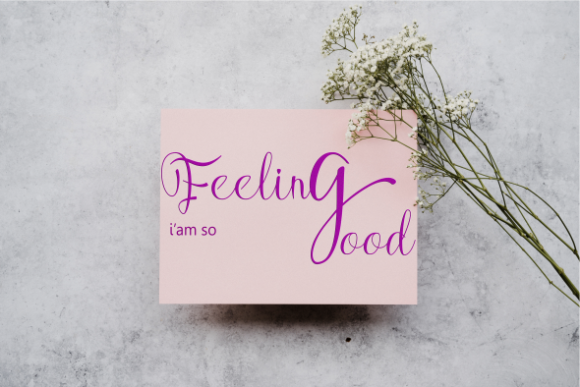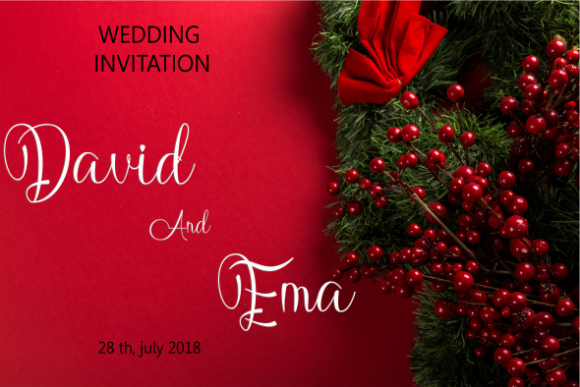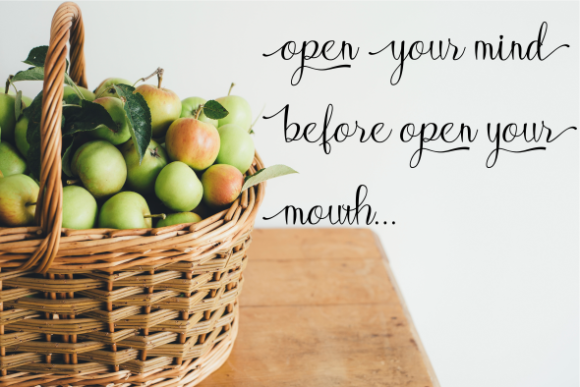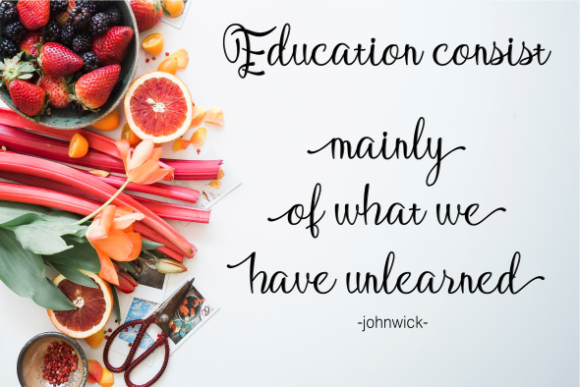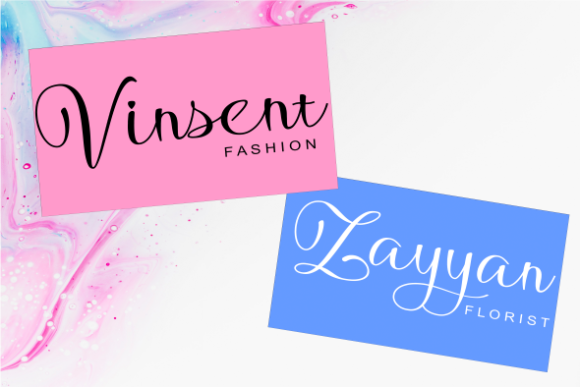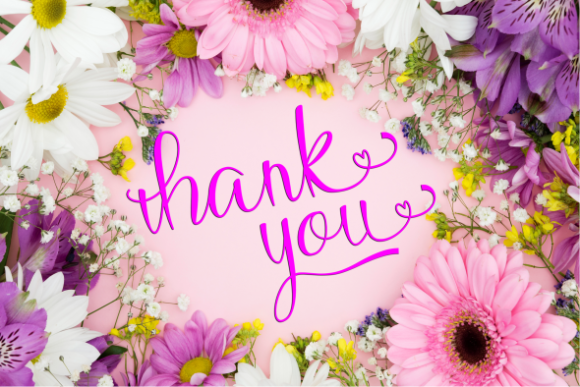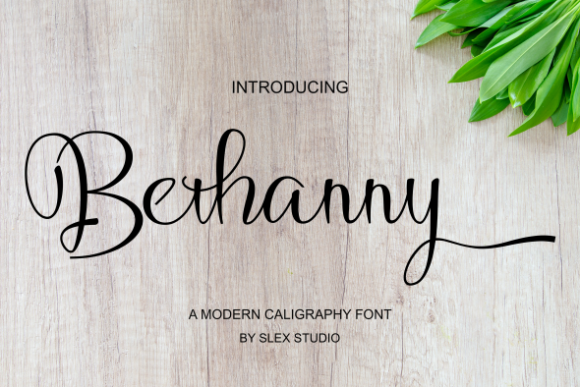
Bethanny Font: Elevate Your Creativity with Elegant Handwritten Style
In the world of typography, a good font can make all the difference in transforming a simple design into a masterpiece. For designers, crafters, and DIY enthusiasts, finding the perfect font that combines elegance and uniqueness can be a daunting task. However, with the introduction of Bethanny Font, the search is over. This outstanding handwritten font is designed to simplify elegance, making it an ideal choice for various creative projects.
What is Bethanny Font?
Bethanny Font is a beautifully crafted handwritten font that embodies the essence of elegance and sophistication. Its unique and flowing script is perfect for adding a personal touch to any design, whether it’s for digital or print use. With its smooth and connected letters, Bethanny Font exudes a sense of refinement and luxury, making it ideal for high-end branding, packaging, and advertising.
Features of Bethanny Font
Bethanny Font boasts an impressive range of features that make it a standout in the world of typography. Some of its notable features include:
- Unique and Elegant Design: Bethanny Font’s handwritten script is both distinctive and sophisticated, making it perfect for designs that require a touch of elegance.
- Highly Versatile: This font is suitable for a wide range of creative projects, from Instagram posts and DIY crafts to professional branding and advertising.
- Easy to Read: Despite its elegant and cursive nature, Bethanny Font remains highly legible, making it perfect for body text and captions.
- Extensive Character Set: The font includes a comprehensive character set, covering uppercase and lowercase letters, numbers, and punctuation marks.
Use Cases for Bethanny Font
Bethanny Font’s versatility makes it an excellent choice for various creative projects. Here are some use cases where this font truly shines:
- Instagram and Social Media: Add a touch of elegance to your Instagram posts, stories, and bio with Bethanny Font. Its unique script is sure to make your content stand out in a crowded feed.
- DIY Projects: Whether you’re creating handmade cards, gift tags, or scrapbooking pages, Bethanny Font is the perfect choice for adding a personal and artistic touch.
- Branding and Packaging: Use Bethanny Font to create luxurious branding and packaging designs that exude sophistication and refinement.
- Calligraphy and Lettering: With its flowing script and elegant letters, Bethanny Font is ideal for calligraphy and lettering projects, adding a touch of classic charm to any design.
Why Choose Bethanny Font?
With so many fonts available, why choose Bethanny Font? Here are a few compelling reasons:
- Unique and Distinctive: Bethanny Font’s elegant script sets it apart from more traditional fonts, making it perfect for designers and crafters looking to create unique and eye-catching designs.
- Time-Saving: With Bethanny Font, you can achieve professional-looking results without spending hours on intricate calligraphy or lettering.
- High-Quality Design: The font is meticulously crafted to ensure high-quality design, making it suitable for both digital and print use.
In conclusion, Bethanny Font is a game-changer for designers, crafters, and DIY enthusiasts looking to elevate their creative projects with elegant and sophisticated typography. Its unique script, versatility, and high-quality design make it an excellent choice for a wide range of applications. Whether you’re looking to create stunning Instagram posts, luxurious branding, or beautiful DIY projects, Bethanny Font is the perfect tool to help you turn your creative ideas into true pieces of art.